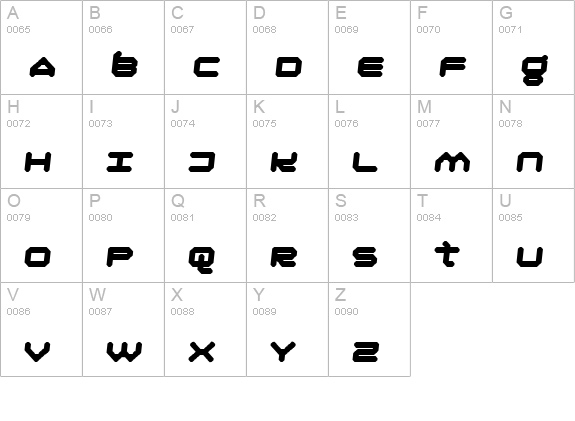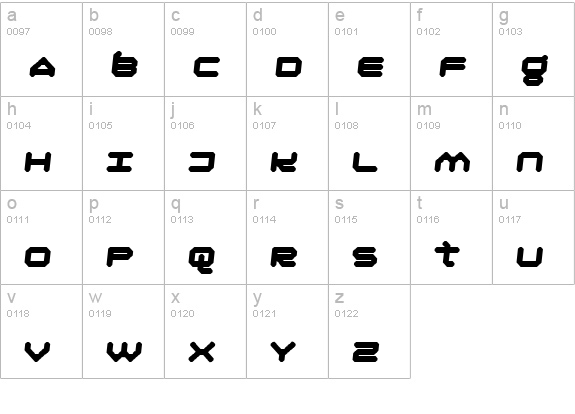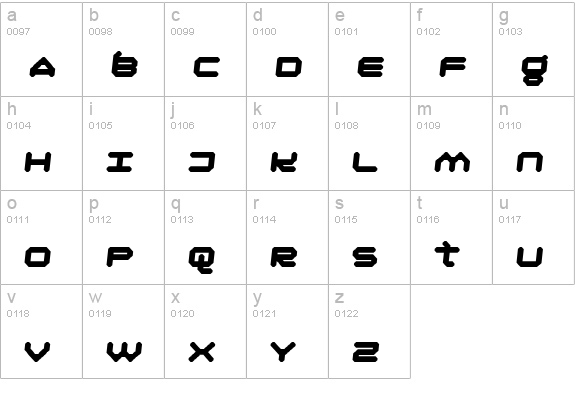
Oliray41 Italica Font Details
Introducing Oliray41 Italica font, a stunning typeface that exudes elegance and sophistication. With its sleek and modern design, this font is perfect for adding a touch of class to any project. The Oliray41 Italica font features clean lines and a unique italicized style that sets it apart from other fonts. What makes Oliray41 Italica font even more appealing is that it is available for free download at FontsMarket.com. This means that you can easily access this beautiful font without having to worry about any extra costs. Whether you're designing a website, creating a logo, or working on a print project, Oliray41 Italica font is sure to make a statement and leave a lasting impression. Don't miss out on the opportunity to enhance your designs with the Oliray41 Italica font. Download it today and take your projects to the next level!